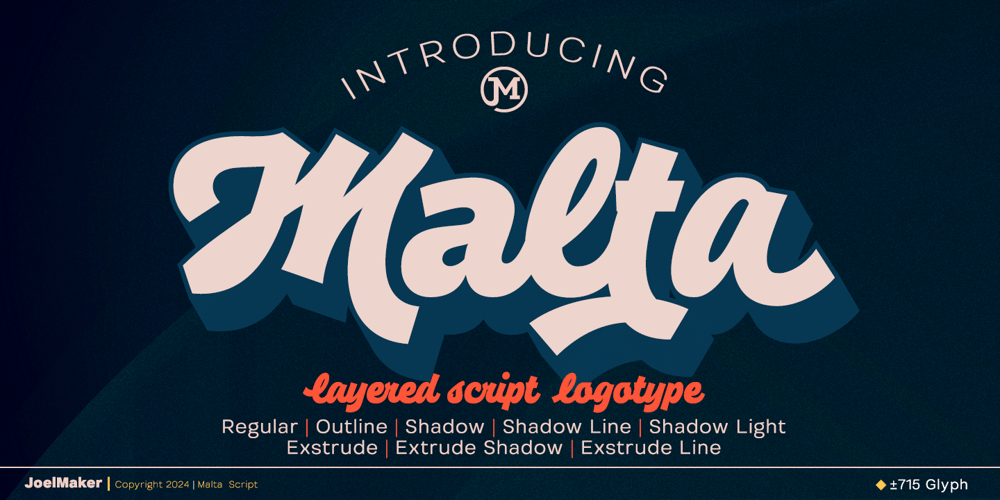
JM Malta Script Font Family was designed by Joelmaker and published by Joelmaker. JM Malta Script contains 8 styles and family package options. JM Malta Script is a firm font, which is combined with swash, titling, stylistic alternates with an Extrude effect, shadow and Outline. from artistic touch elegant modern the as well as a unique blend of ligatures and Discretionary ligatures a letter, so that the authors compose it with a and little swirly embedding, so that a modern font is formed and ready to make a statement by adding elegant and unique flair to your next design project.JM Malta Script – Extrude & Shadow can be used for various purposes such as Title, Poster, Logo, T-Shirt, Sub Title, cards, Trademark, Label, Book Covers, Templates Instagram Story Post, Greeting Cards, Quotes, etc.These letters are embedded into the font file and easily accessible in programs such as photoshop and illustrator. You can access these in more basic design programs but you will need to use your character map or font bookCome on..let’s style and pamper your next design with JM Malta Script – Extrude & Shadow.